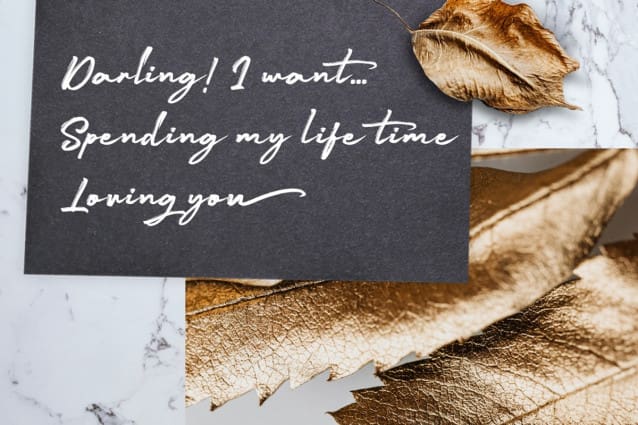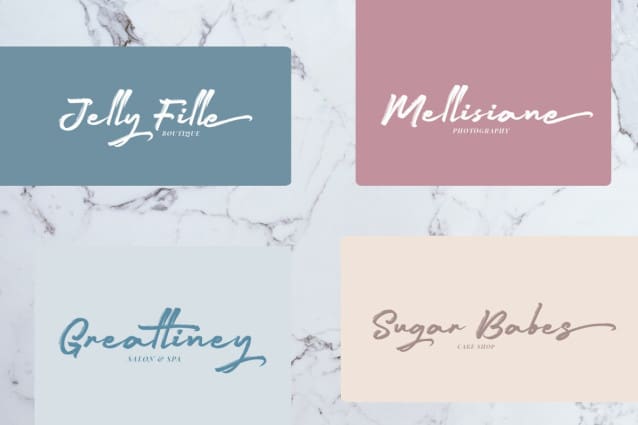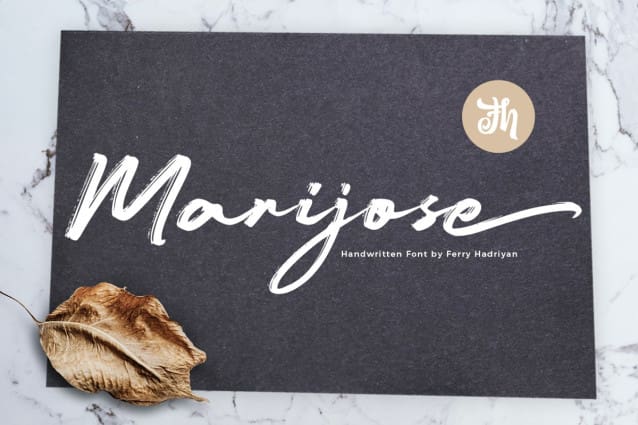
Marijose Script Font
Marijose Script Font is script font with handlettering brush style, inspired signature style with opentype feature include of the font. Suitable for design, element design, wedding, event, t-shirt, logo, badges, sticker, and awesome work, etc…